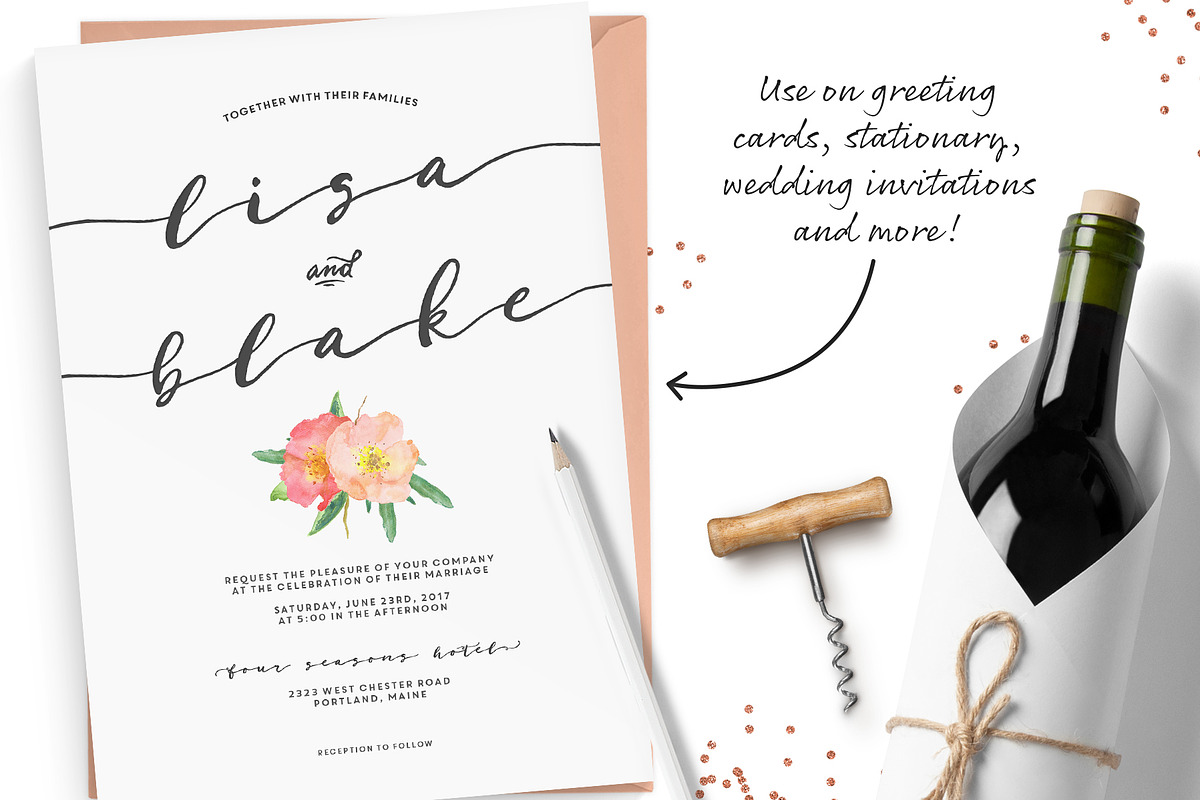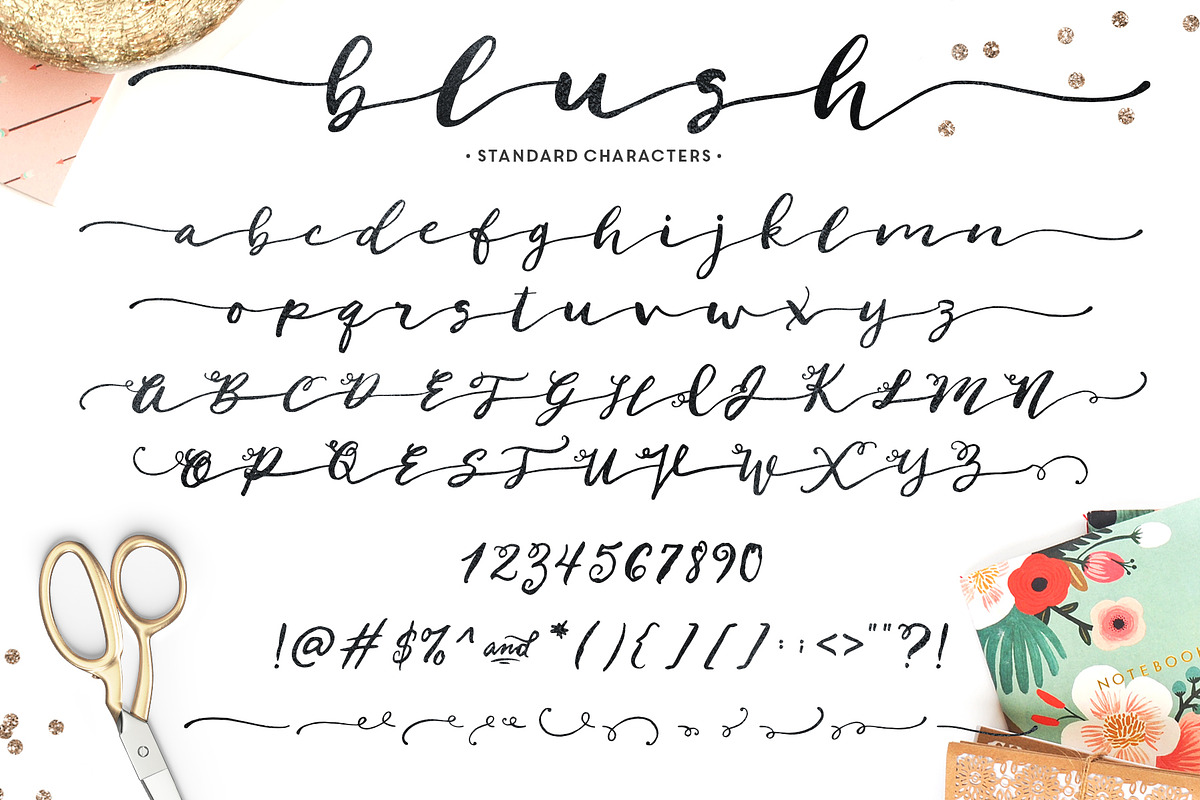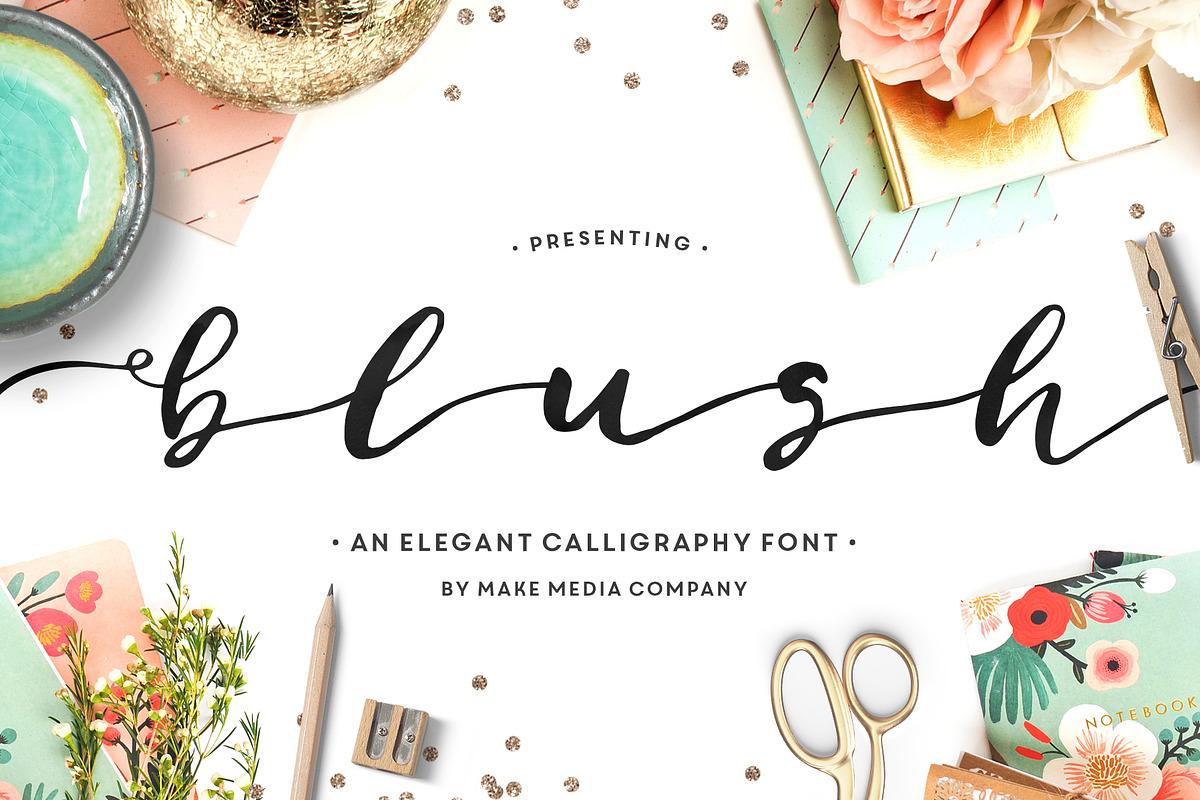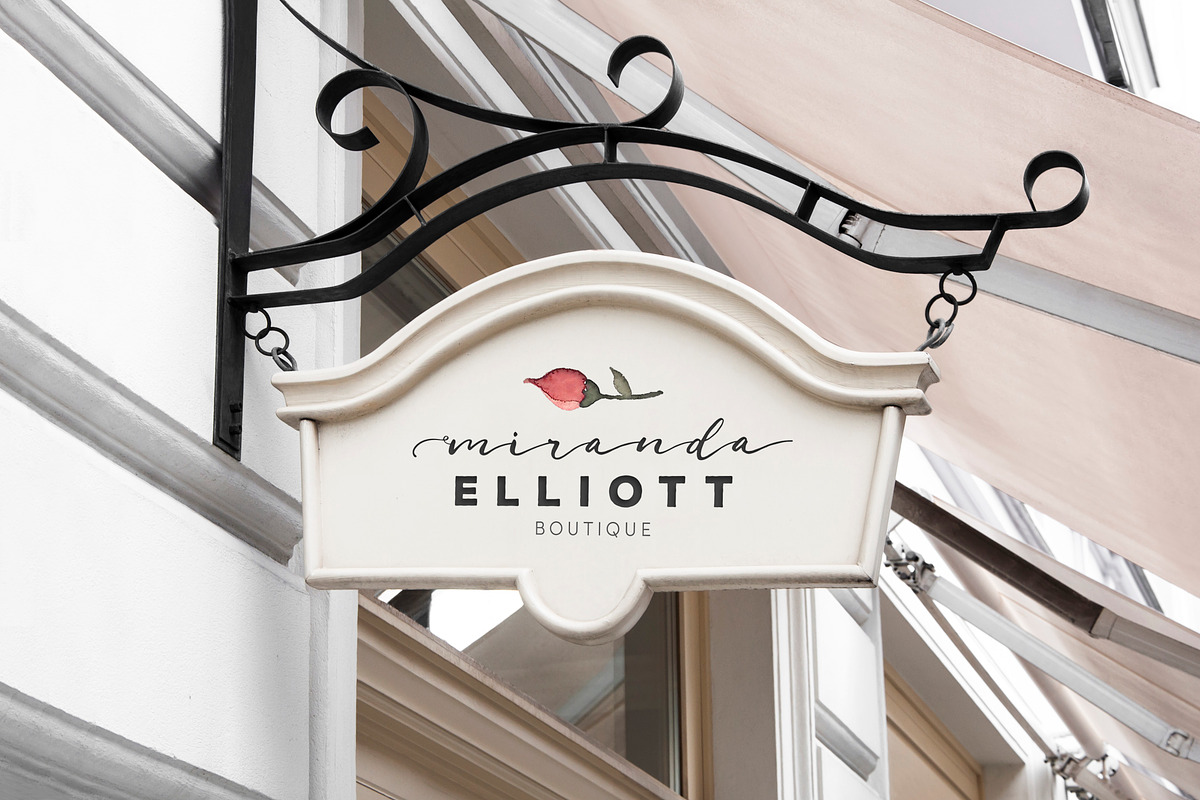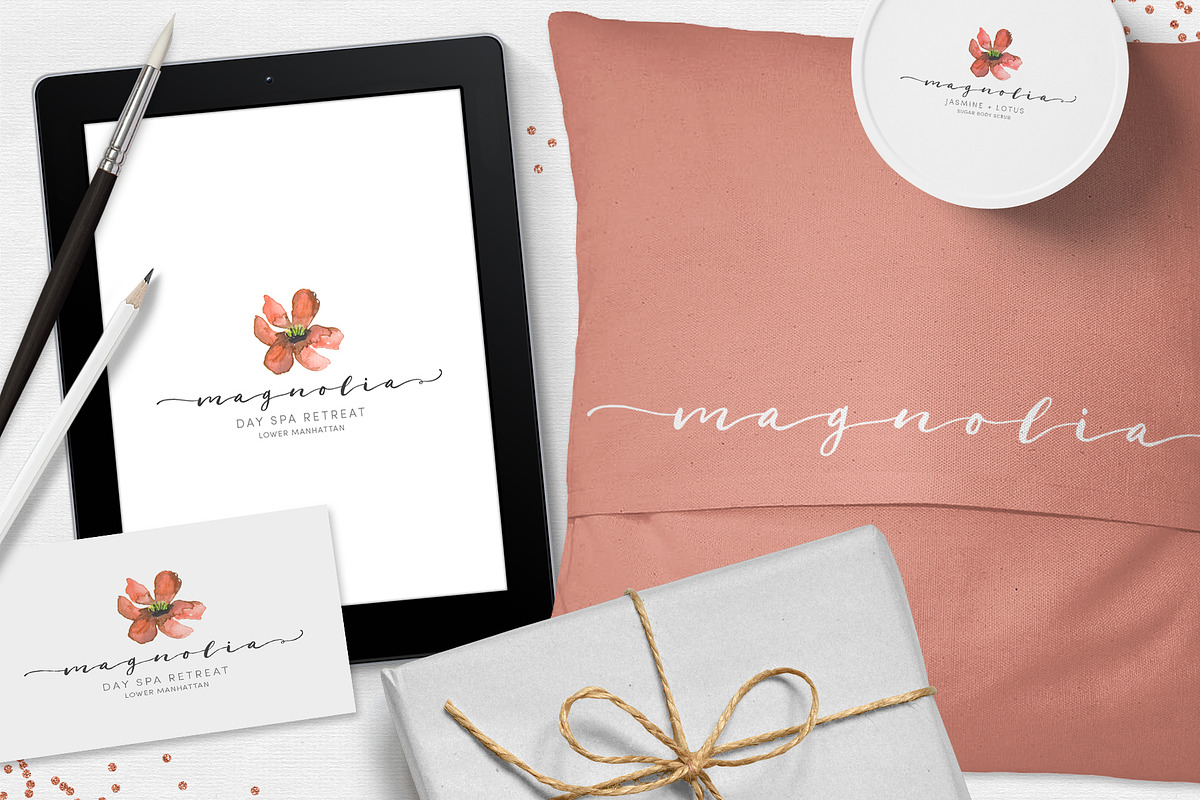
Blush Typeface
Blush Typeface by Callie Rian & Co. is a font selected for branding, posters, packaging, typography.
- Contains Western European Language Support, ligatures and decorative end characters.
Why Blush Typeface is worth a look
Blush Typeface by Callie Rian & Co. fits naturally into Branding, posters, packaging, typography.